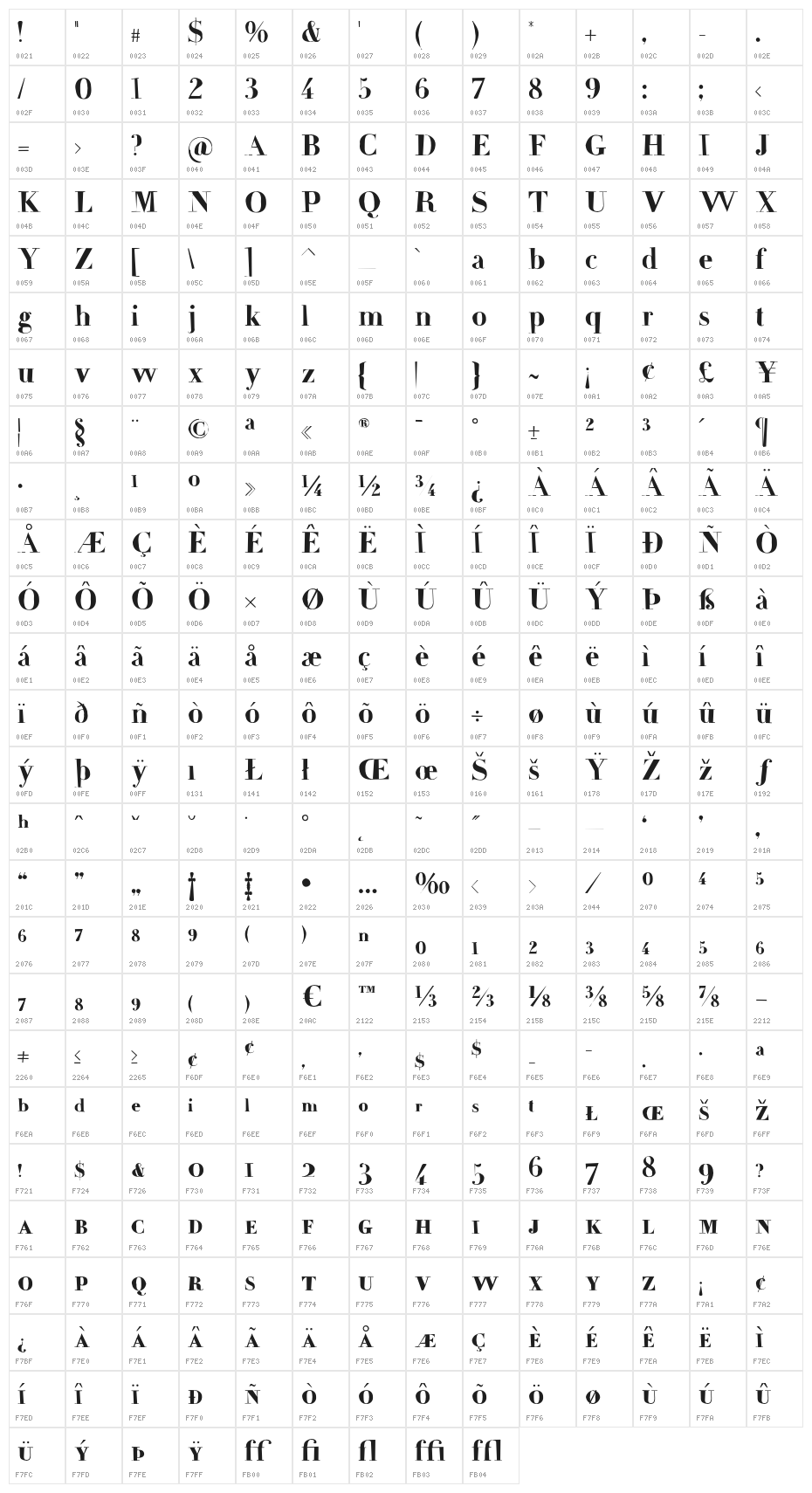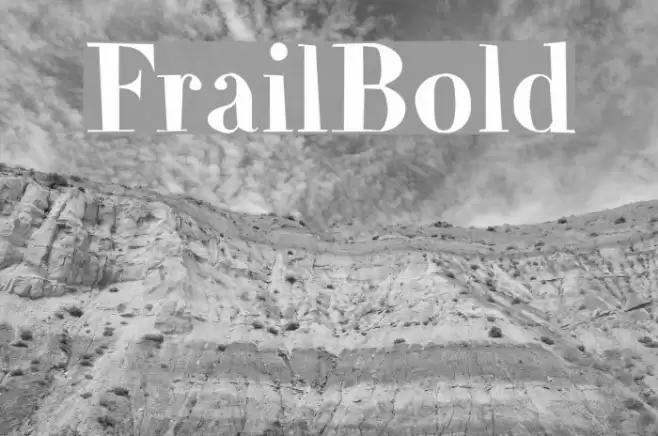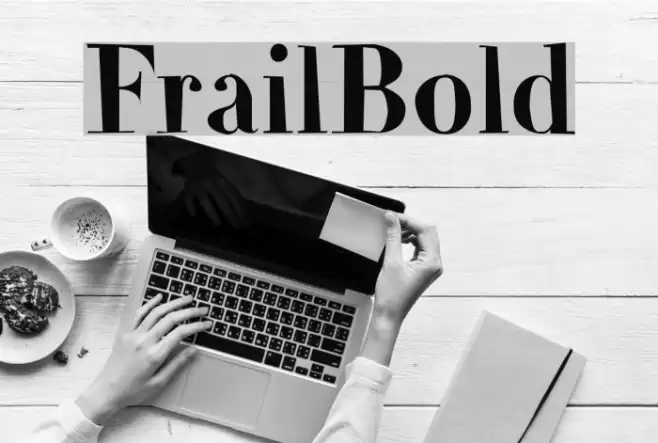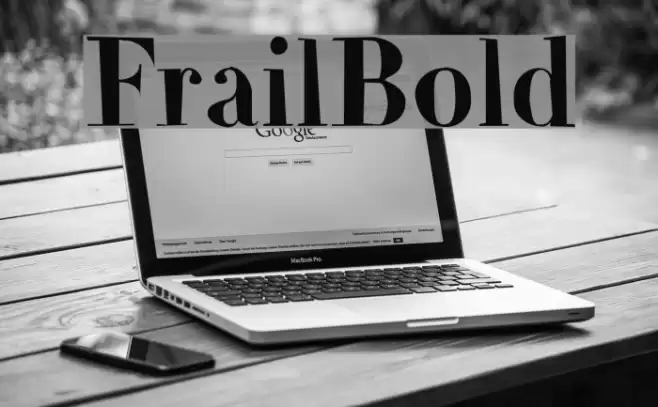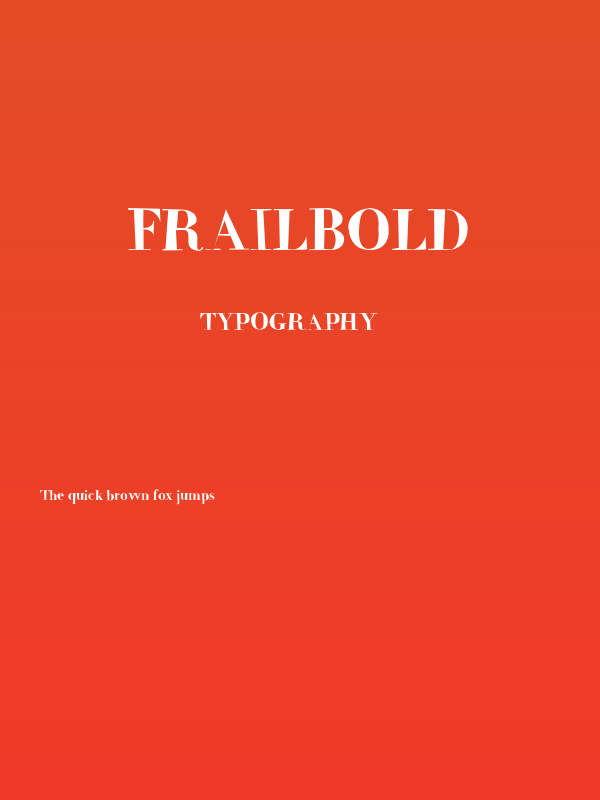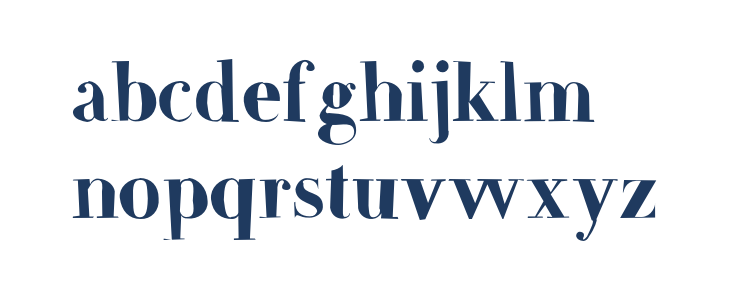
FrailBold Font
FrailBold Description
This font features a bold and dramatic style with high contrast between thick and thin strokes, giving it a striking appearance. The serifs are pronounced and add a touch of elegance, while the overall design maintains a modern flair. The uppercase letters are tall and commanding, while the lowercase letters are more rounded and approachable. Numbers are consistent with the bold style, ensuring readability. Special characters are well-integrated, maintaining the font's cohesive look. This font is ideal for making a strong visual impact.
| Proposed Projects | Ideal for headlines, branding, posters, and any project requiring a strong visual impact. |